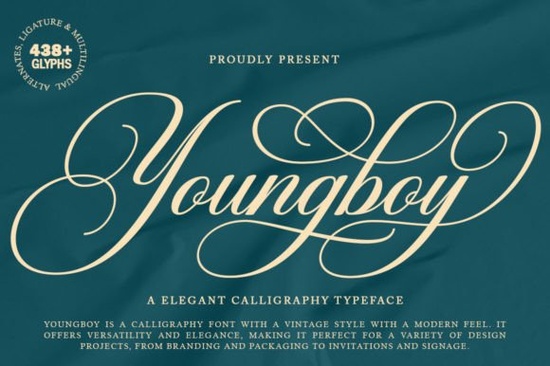
If you are looking for a calligraphy font that blends vintage charm with a clean, modern finish, Youngboy Font is worth a close look. This decorative copper script offers smooth, feminine letterforms with fancy connections that keep the text easy to read a rare balance for a classic style. Whether you design wedding invitations, restaurant menus, or product labels, this typeface brings an elegant, glamorous feel without being overly ornate.
What makes Youngboy Font different from other script fonts?
Many script fonts sacrifice readability for flourishes. Youngboy Font manages to stay clean and simple while still offering those beautiful changing characters that make calligraphy so appealing. The strokes are smooth and sensual, yet the letters are clear enough for longer text. This makes it practical for everything from a logo to a multi-page menu. It also works beautifully alongside other script styles pair it with something like League Spartan Font for a bold headline contrast, or use it alone for a subtle, handwritten feel.
Is Youngboy Font easy to read for body text?
Yes, surprisingly so. Because of the clever letter connections, even when used at smaller sizes, the words stay legible. That is why it suits not just invitations and labels, but also novels, magazines, and books. If you run a print-on-demand shop selling stationery or greeting cards, this font can make your text-heavy designs look polished and professional. For daily use notes or planners, you might also like Kids Daily Notes Font it has a lighter, playful vibe but Youngboy Font keeps a more refined, formal tone.
What design projects benefit the most from Youngboy Font?
This font shines in formal and luxury contexts. Think of:
- Wedding invitations and greeting cards the classic copper script adds romance.
- Restaurant menus and wine labels elegant touch without overcomplicating.
- Branding and logos for fashion or makeup brands sensual and glamorous.
- Packaging for premium products the smoothness suggests quality.
- Signage for boutiques or cafes easy to read from a distance.
If you are working on a more playful project, consider Barbie Font Script Fonts for a fun, pink aesthetic, but for a sophisticated look, Youngboy Font is your choice.
How does Youngboy Font compare to other script fonts for small businesses?
Small business owners often need a single font that can work across multiple uses logo, website headers, social media graphics, and printed materials. Youngboy Font does all that well. Its modern touch keeps it from feeling dated, while the vintage roots give it character. For a hand-drawn, sketchy alternative, you might look at Memo Sketch Font Script Fonts or Whimsy Note Font Script Fonts for a more casual style. But if you want something versatile, elegant, and universally appealing, Youngboy Font deserves a spot in your toolbox.
Practical checklist before using Youngboy Font
To get the best results with this font, keep these points in mind:
- Test the changing characters use OpenType features in your design software to access alternate letterforms.
- Pair with a simple sans-serif for body text or secondary headlines, a clean sans-serif keeps the design balanced.
- Watch the spacing because of the connections, adjust kerning for large headlines to avoid clutter.
- Use on light backgrounds the thin strokes show best on white, cream, or pastel.
- Print a test page always check readability at actual size before finalizing.